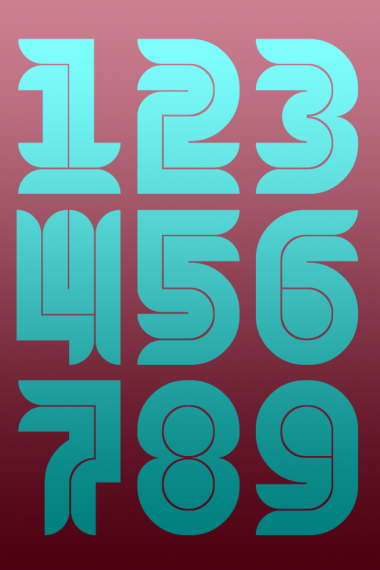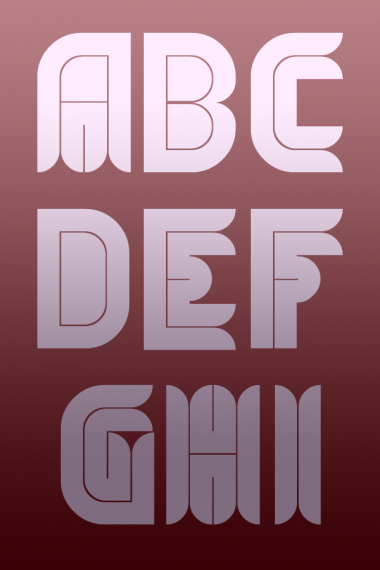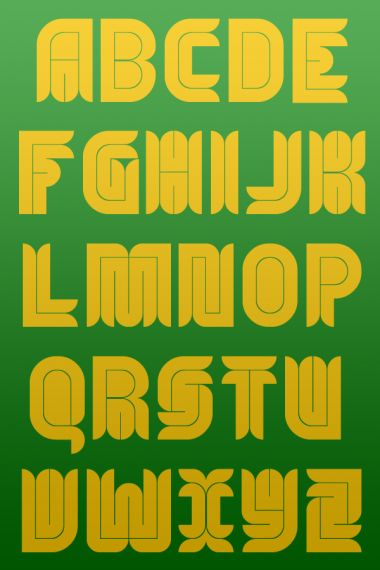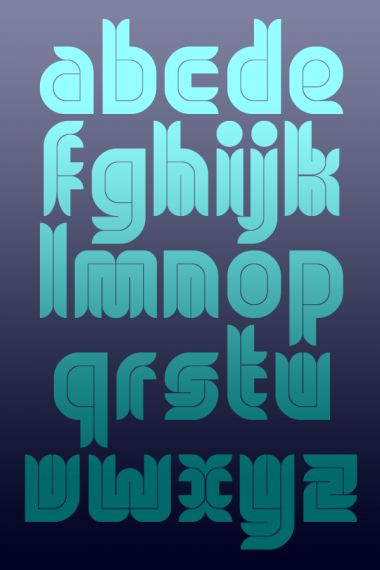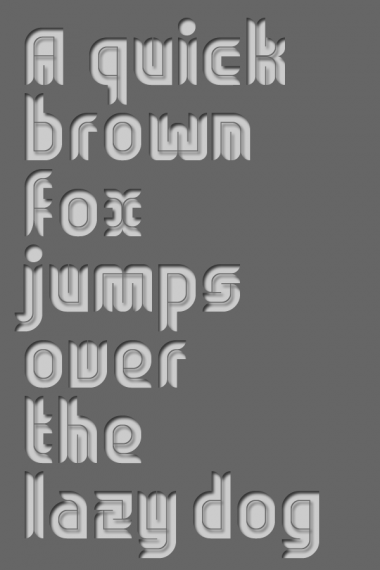
This may as well be one of the all-time-best fontstructions! Incredible technique with astonishing result.
I agree with architaraz. Impressive!
I'm with the guys! Superb! ¡Magnífica! My 100 4U!
WOW
I'm impressed, too! Nice idea overall, and wonderful samples! I have the blockier Ribbon Inline to my credit, but you've gone way beyond that with your use of curves and brick-stacking. Kudos!
Stunning!!